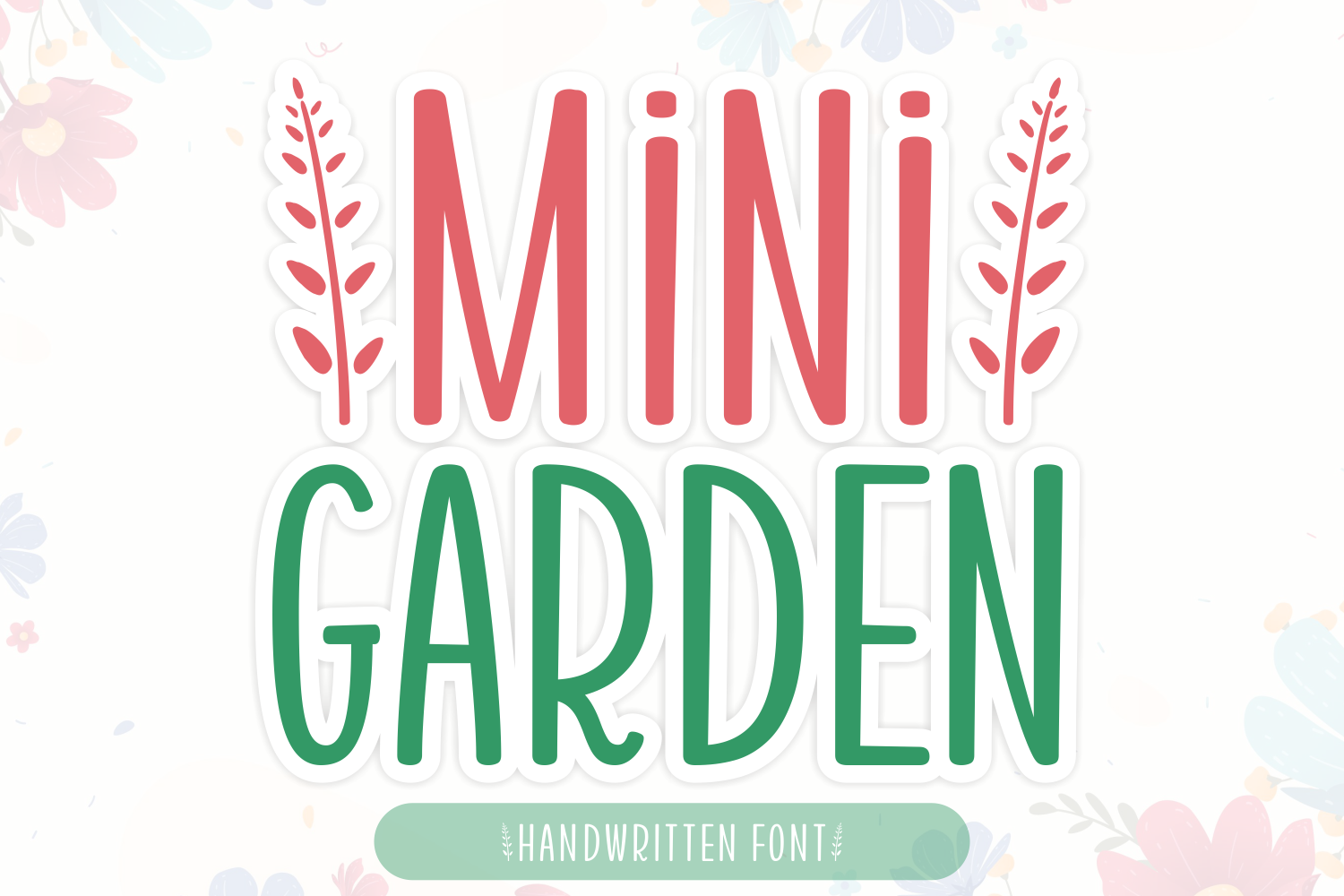
Mini Garden is a simple, neat, and adaptable handwritten font. No matter the topic, this font will be an incredible asset to your fonts’ library, as it has the potential to elevate any creation.